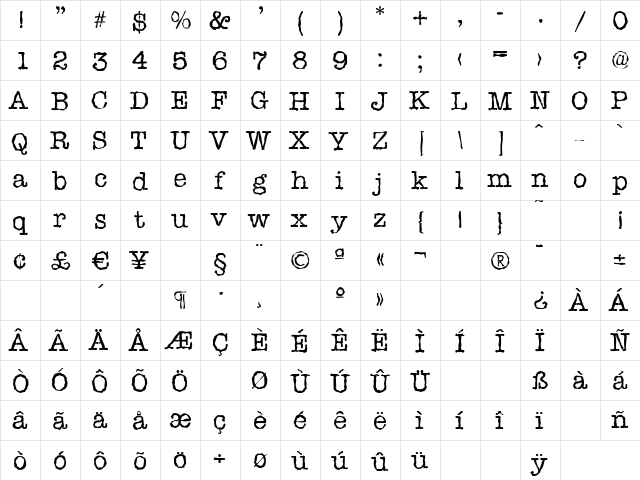
TypewriterRandom Regular
Design Context for TypewriterRandom Typeface
TypewriterRandom uses fixed-width spacing throughout, giving it the structured, systematic character associated with coding environments and technical documentation.
Pro Tip: Use TypewriterRandom with slightly increased line-height for extended reading — fixed-width spacing can feel dense in longer passages without extra breathing room.